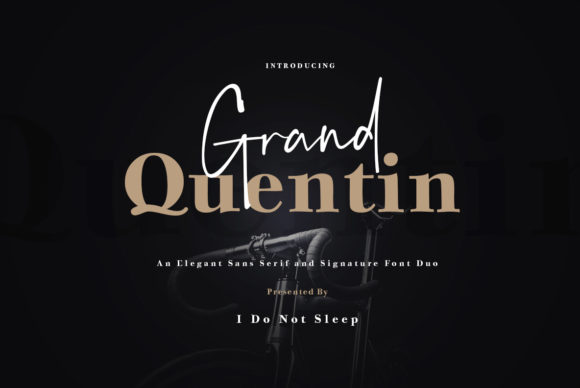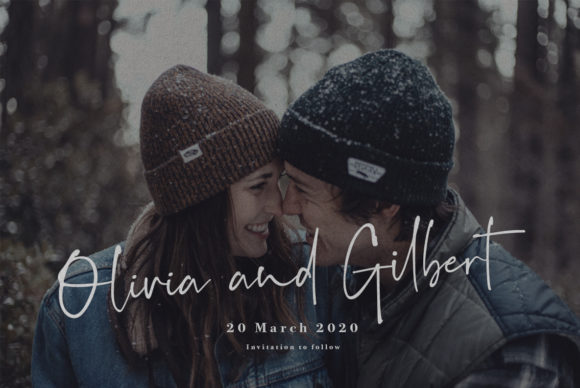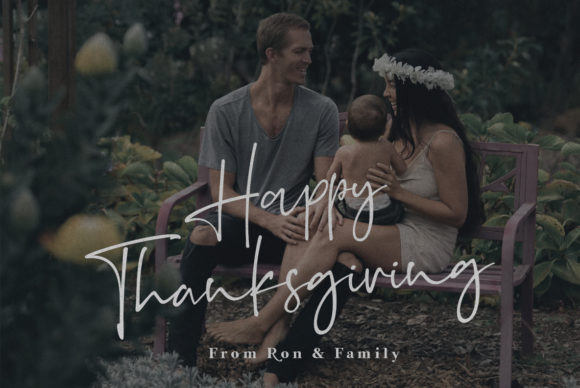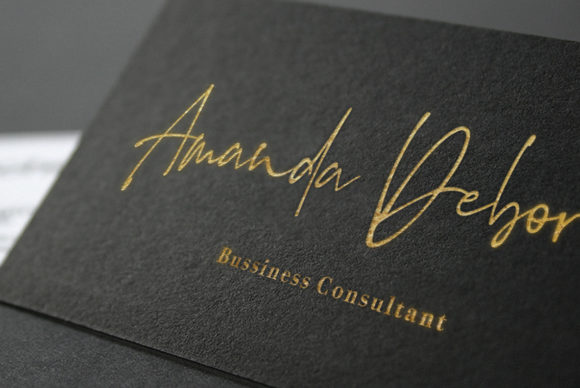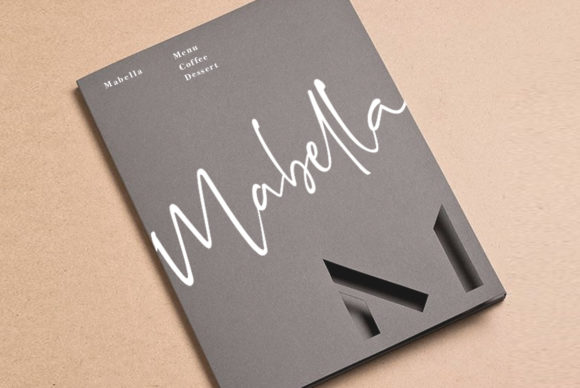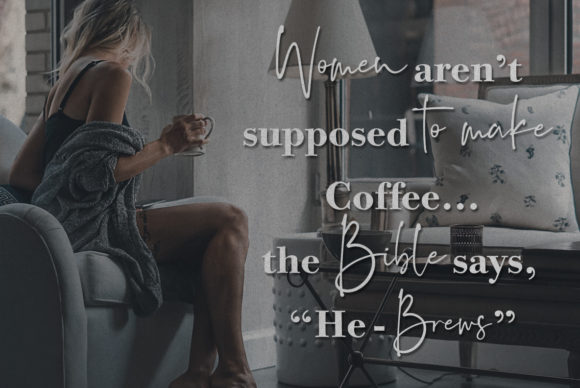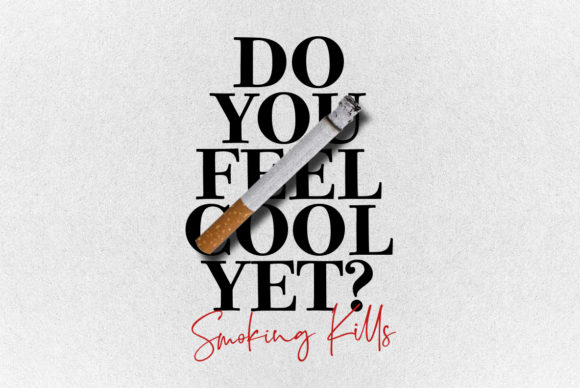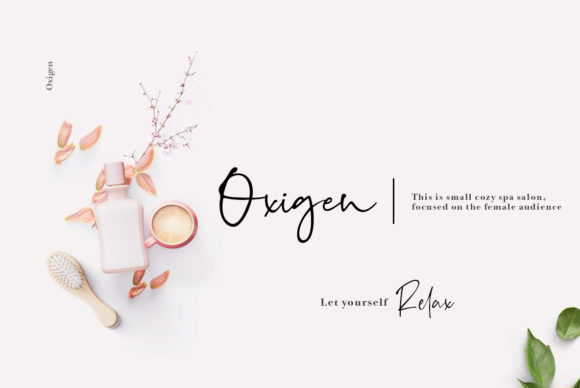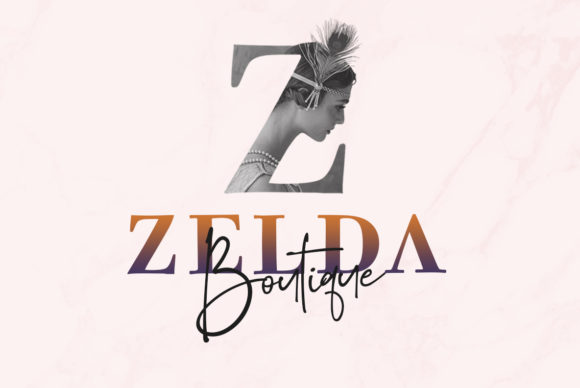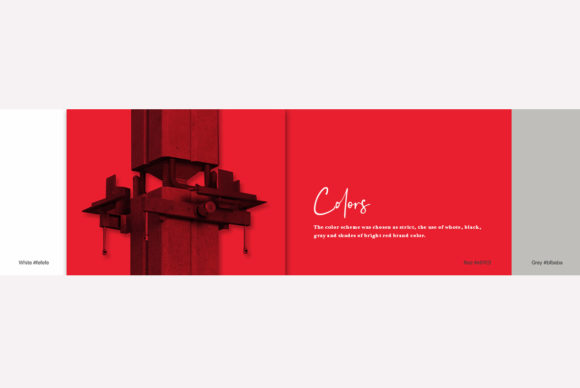
Grand Quentin Duo Font
Grand Quentin Duo is a unique retro-inspired font duo that will turn any design project into a stand out! A stunning blend of two great fonts, this duo effortlessly inspires new creative ideas.